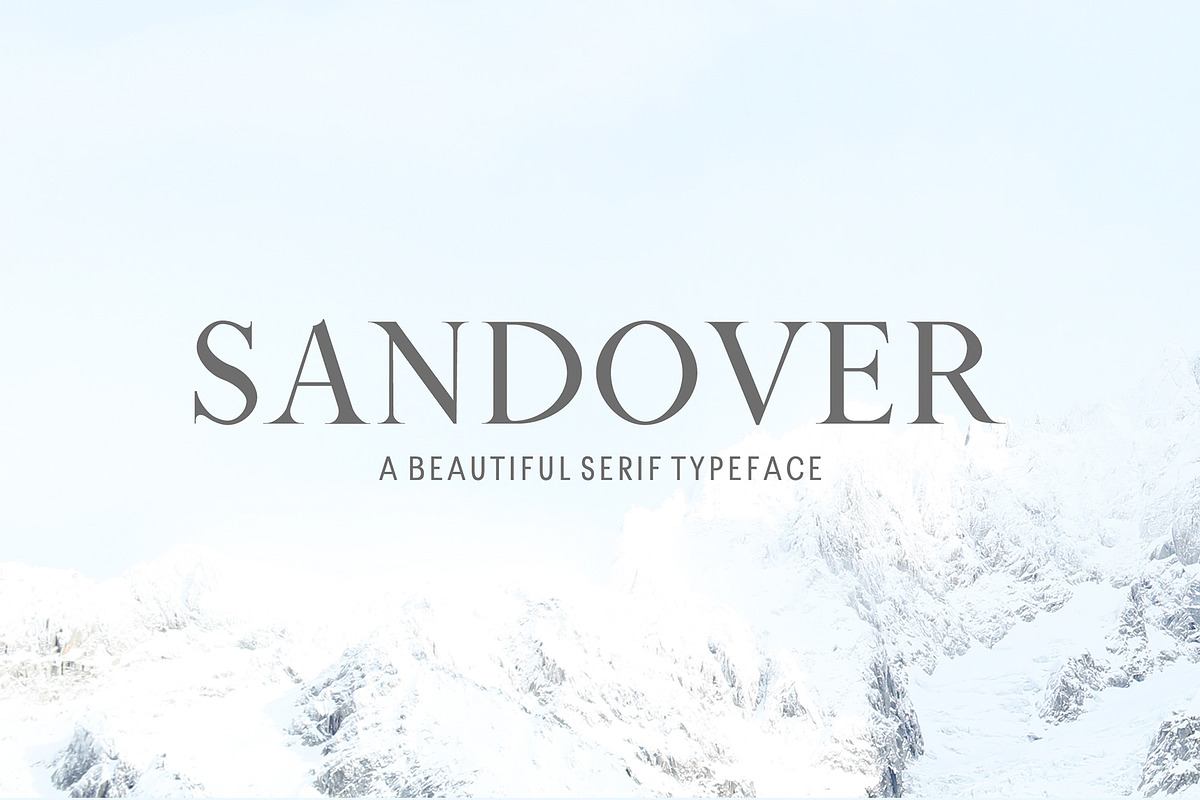
Sandover Serif Font Family Free Download is an elegant and versatile serif typeface designed for a wide range of creative projects. With its clean, structured letterforms and beautiful contrast between thick and thin strokes, this font family offers a sophisticated look suitable for both display and body text. Whether you're working on branding, editorial designs, websites, or print materials, Sandover provides a classic and modern balance that ensures readability and style.
The font family includes multiple weights and styles, giving you flexibility for various design needs, from bold headlines to refined body copy. Sandover works beautifully across a variety of mediums, making it ideal for both print and digital designs.
Elevate your designs with Sandover Serif Font Family Free Download, and add an elegant, timeless quality to your typography. Perfect for designers who seek a refined and adaptable serif font for various creative projects.